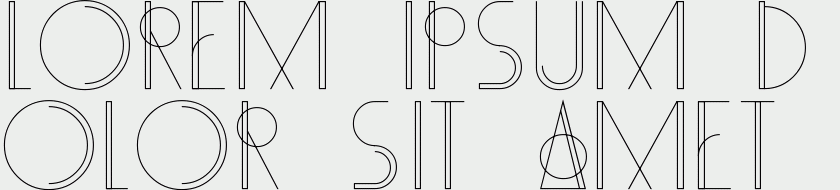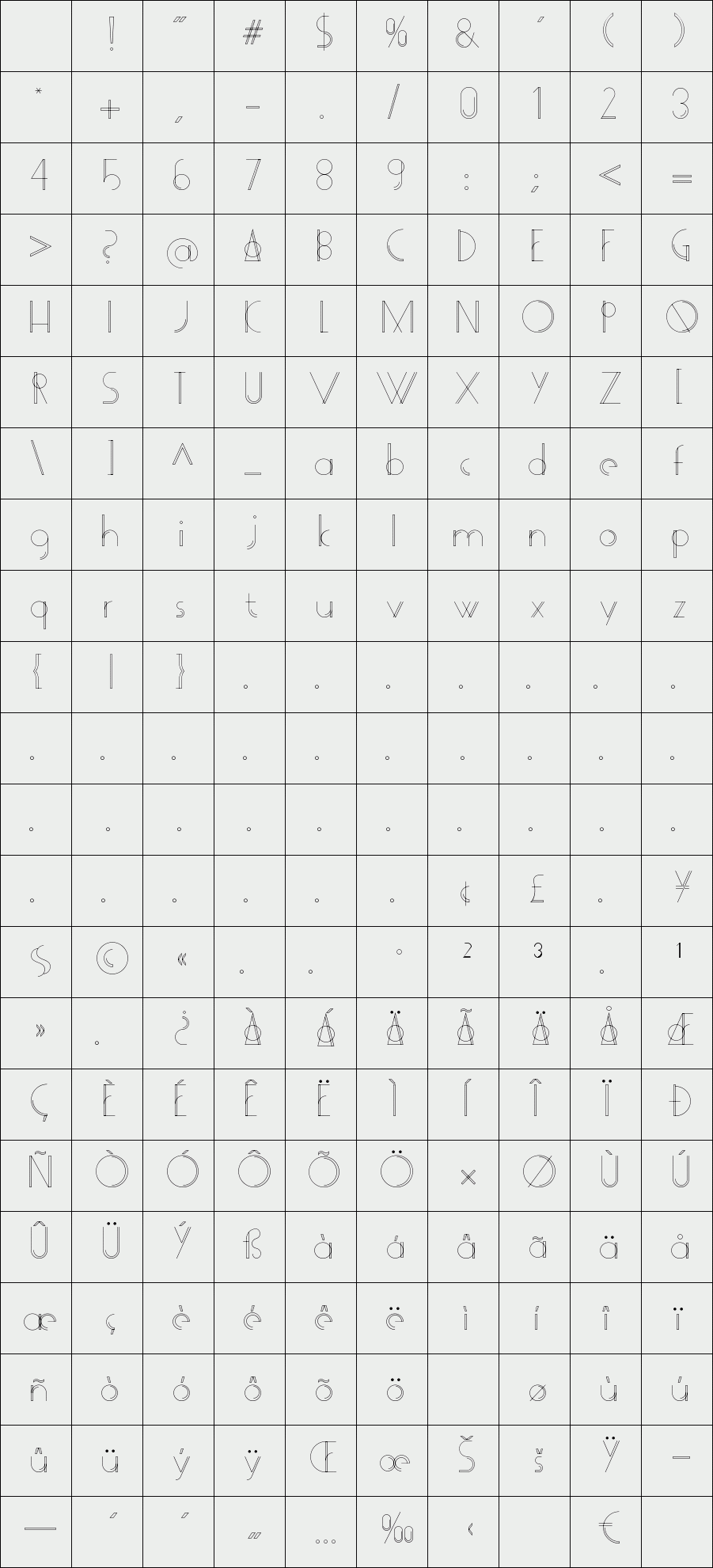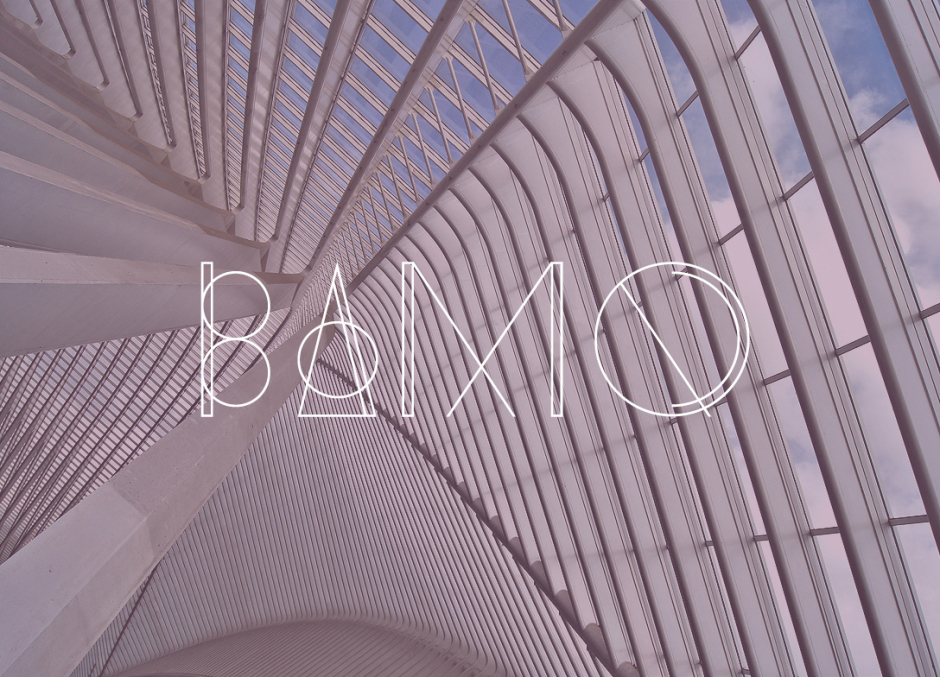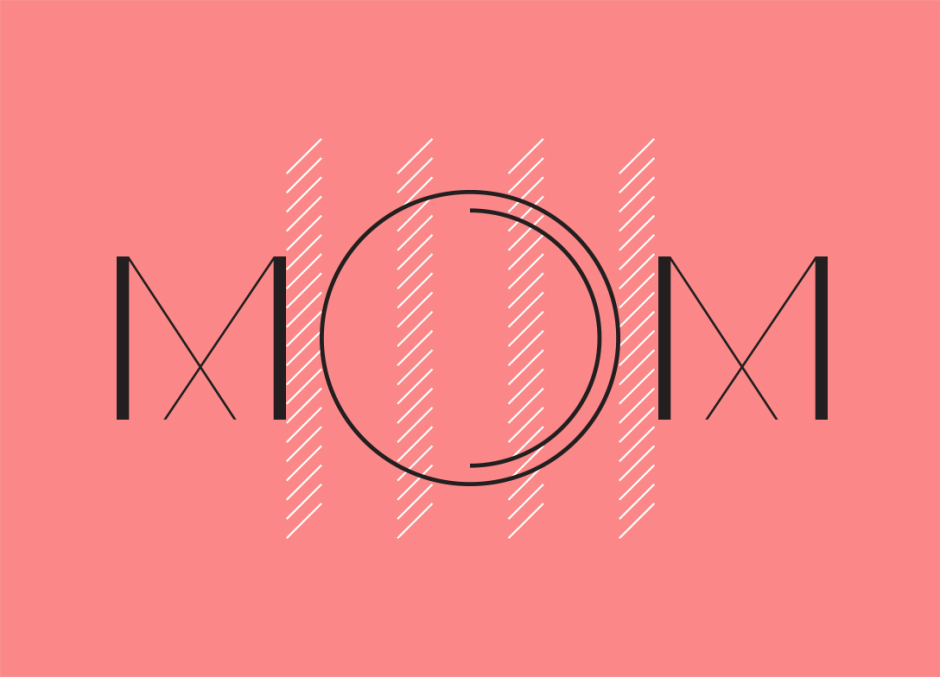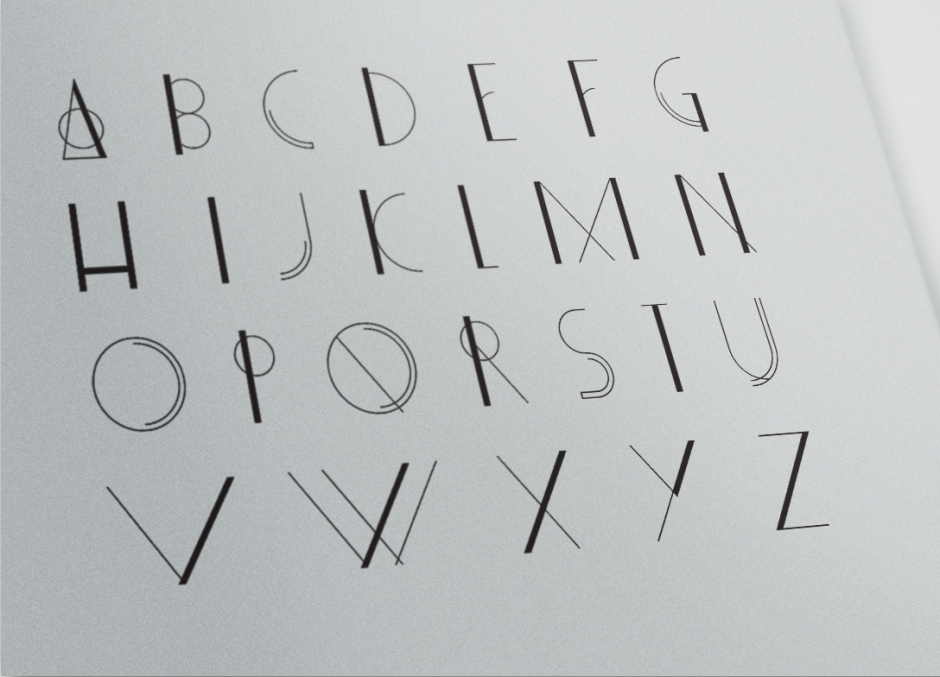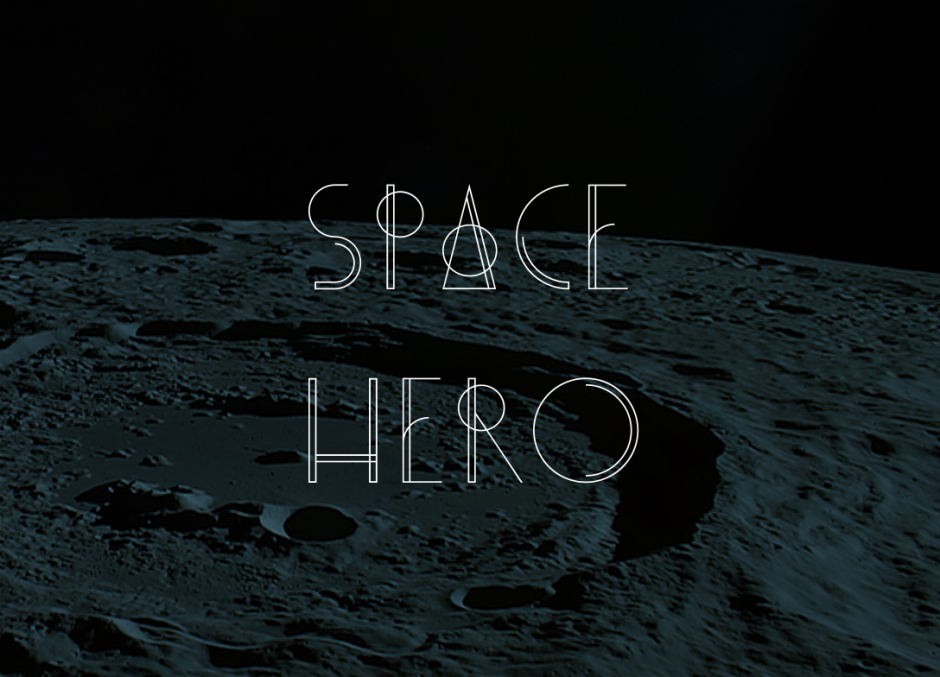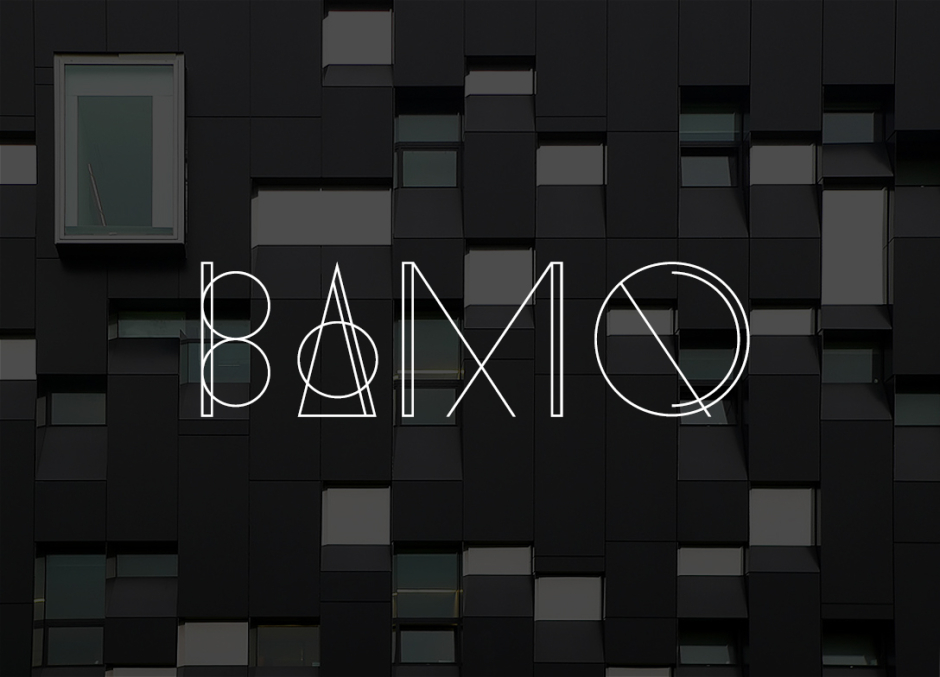
BAMQ
/ Bamq Regular
Typeface design inspired by the modern minimalist architecture. It has geometric shapes and big spaces.
BAMQ Family set composed by the styles: Regular and Bold